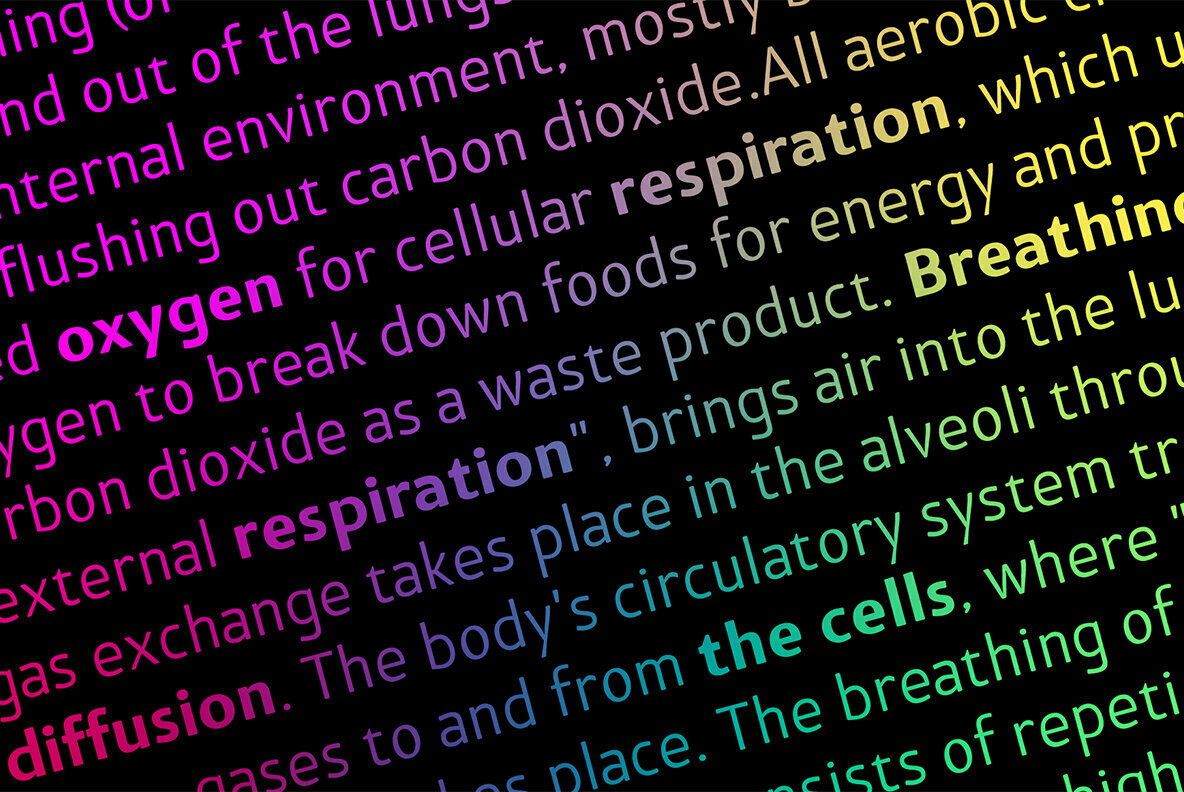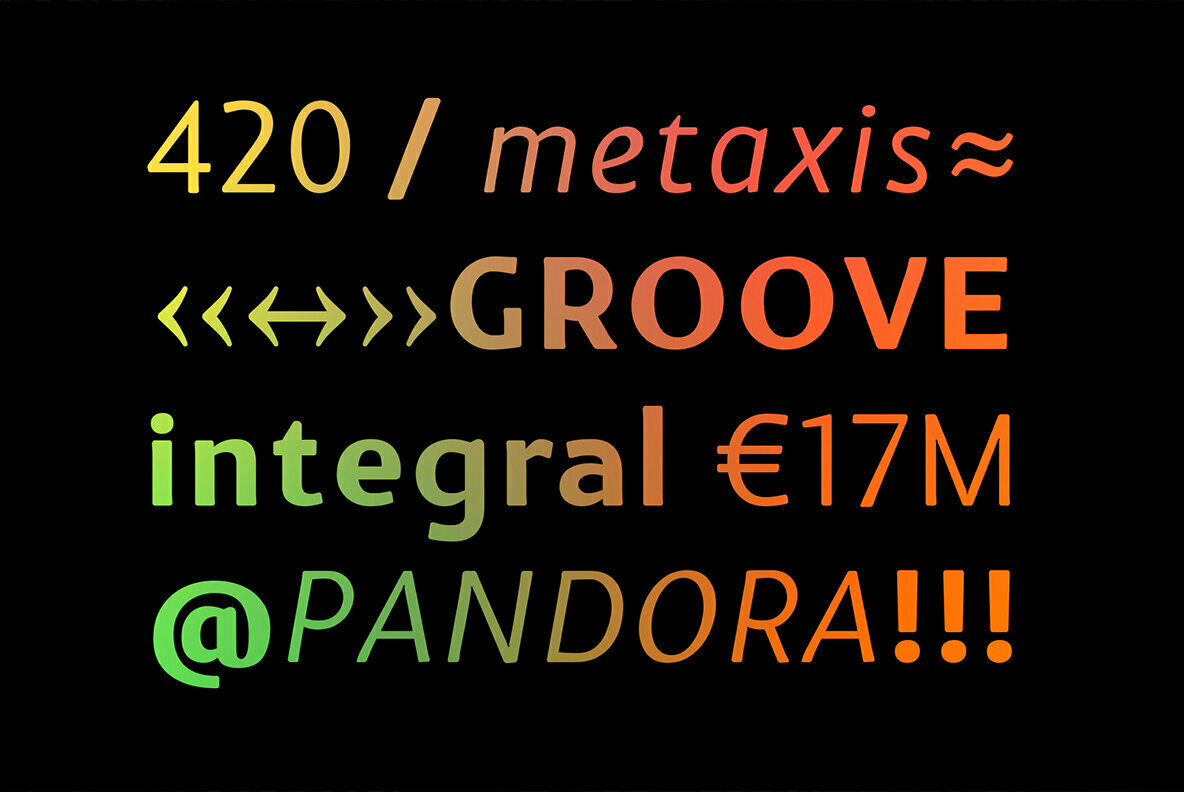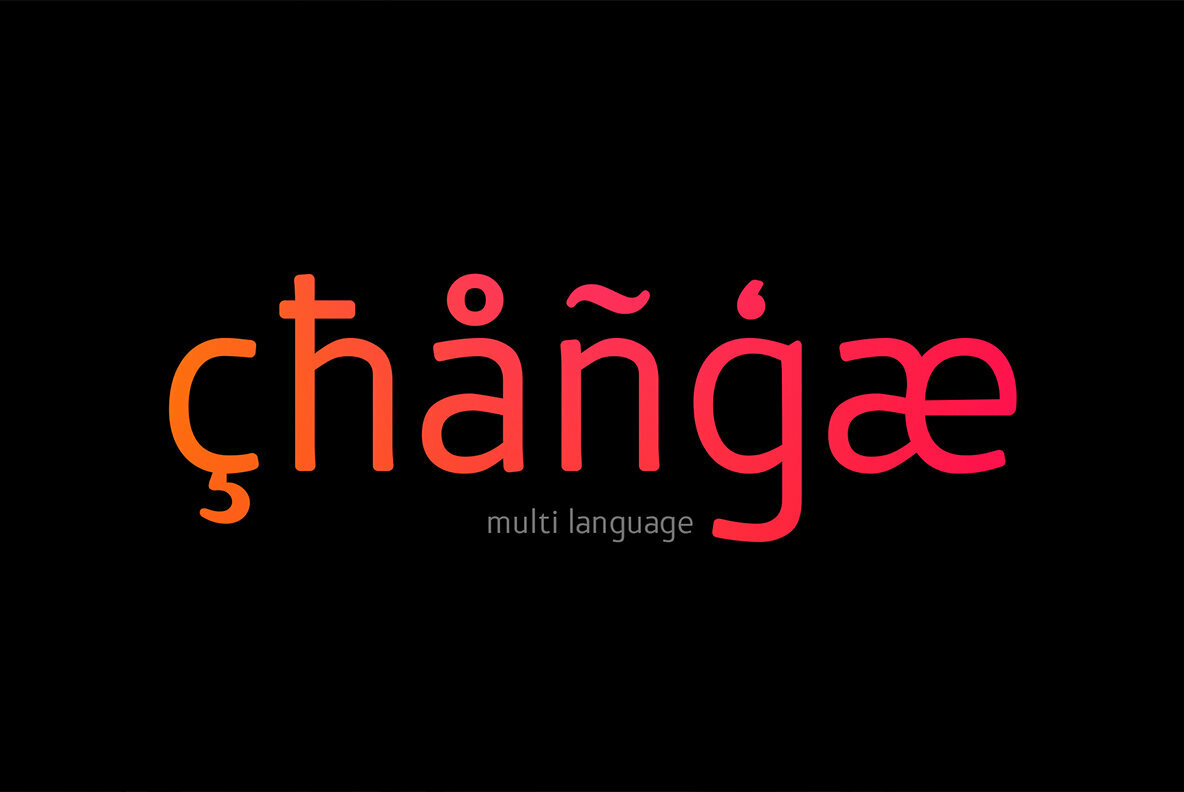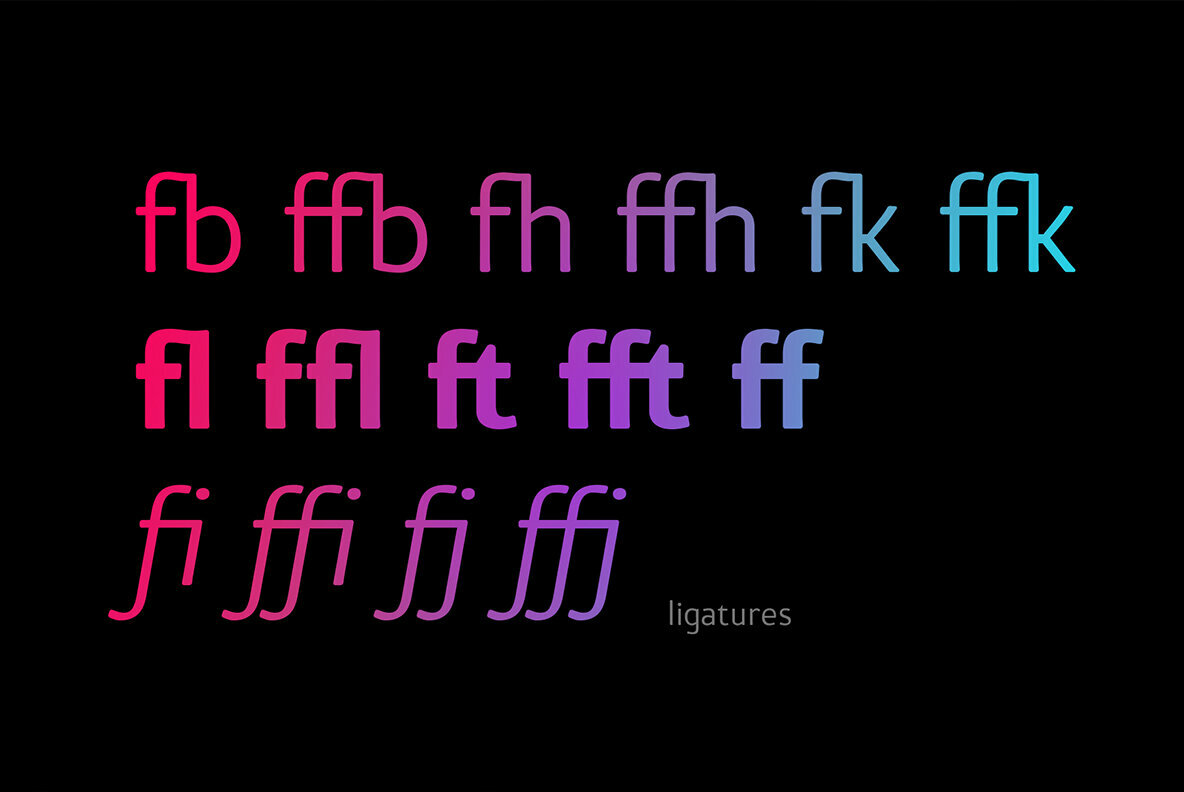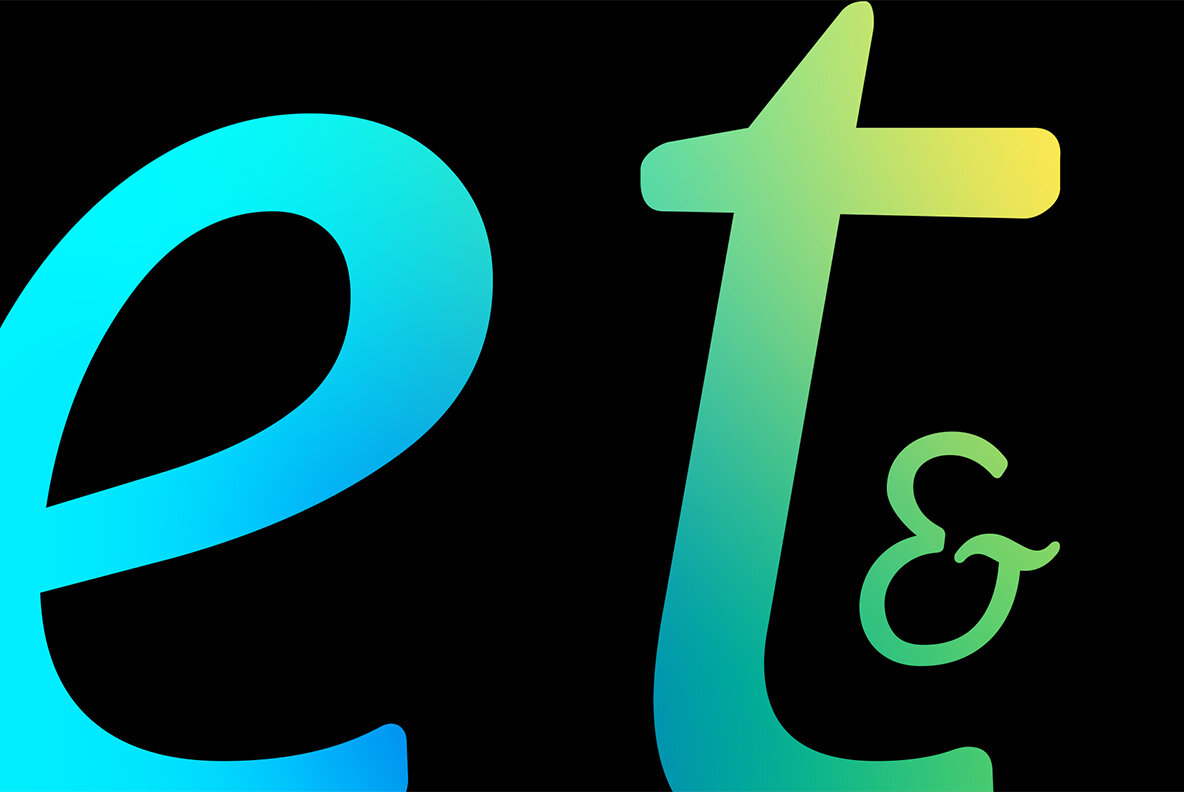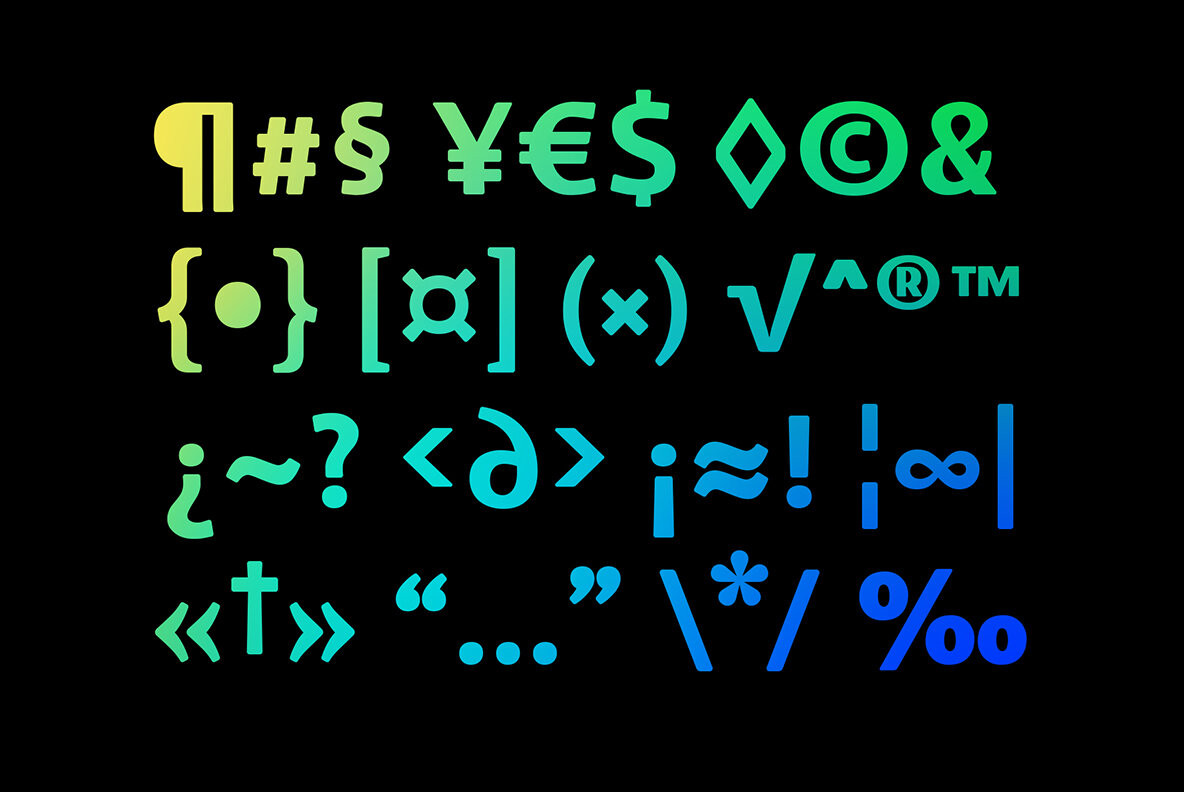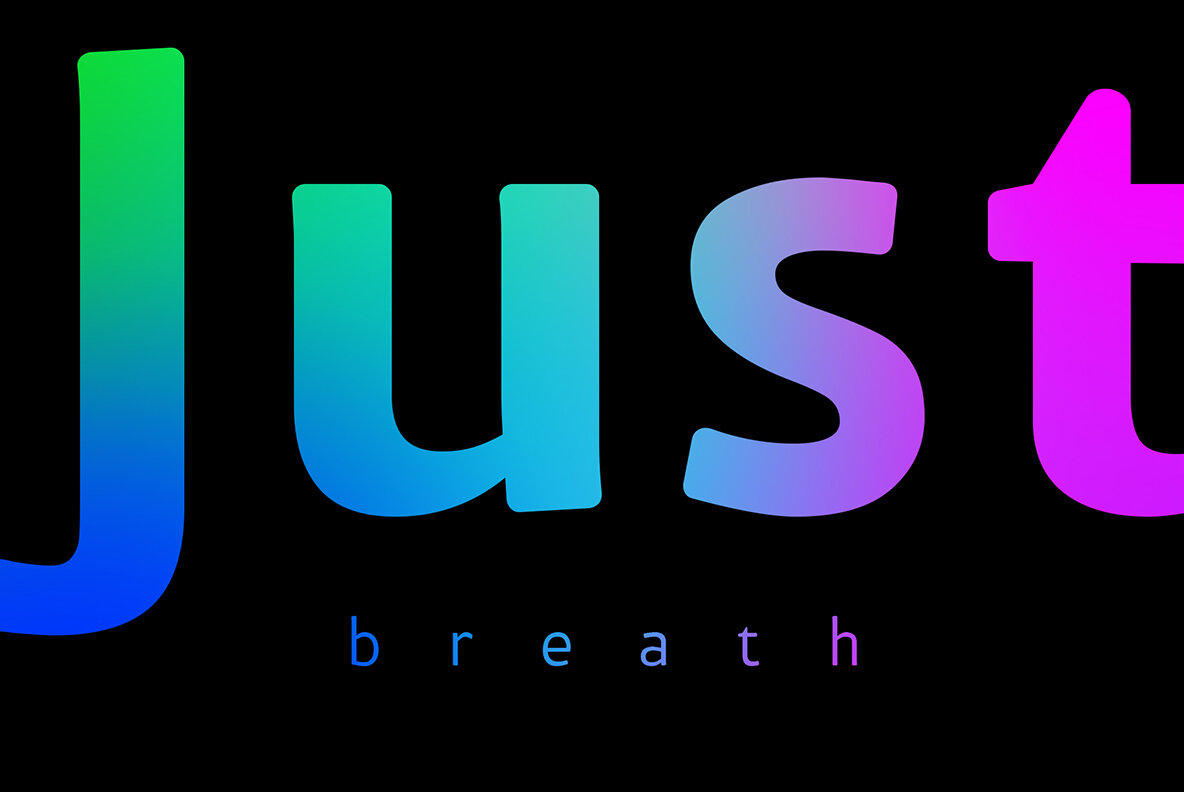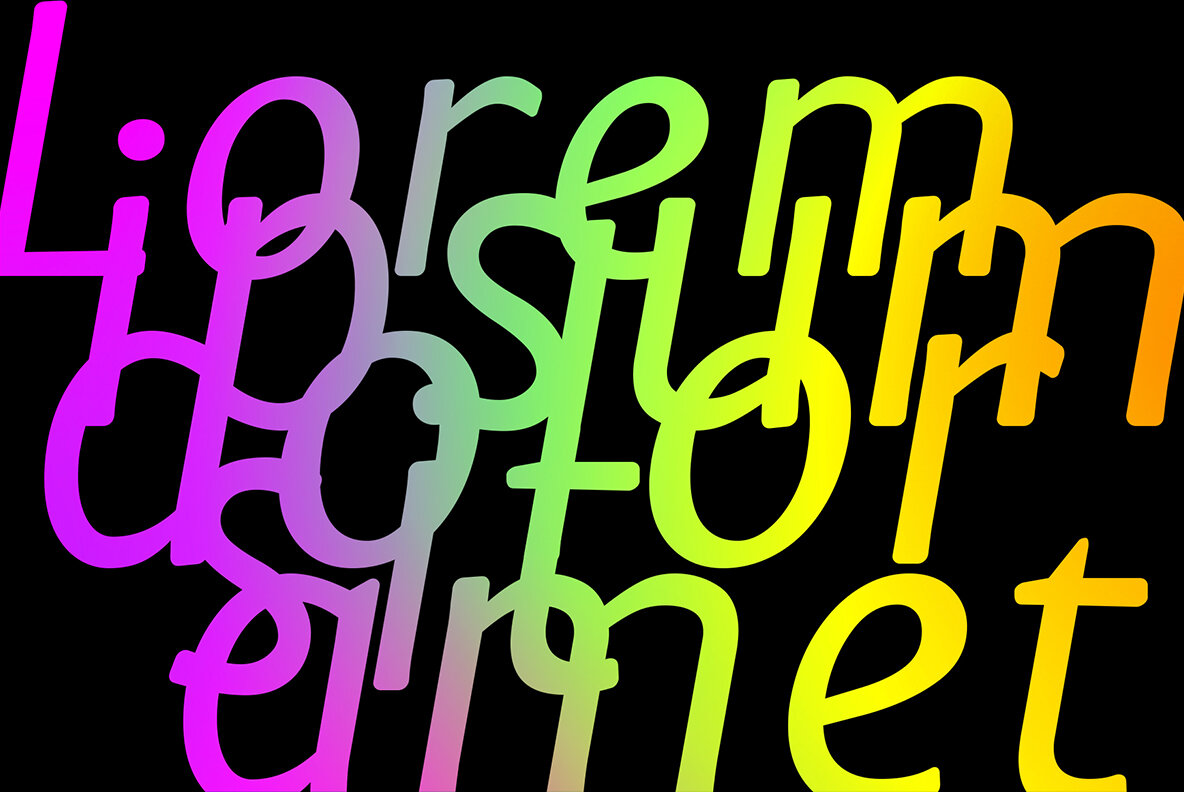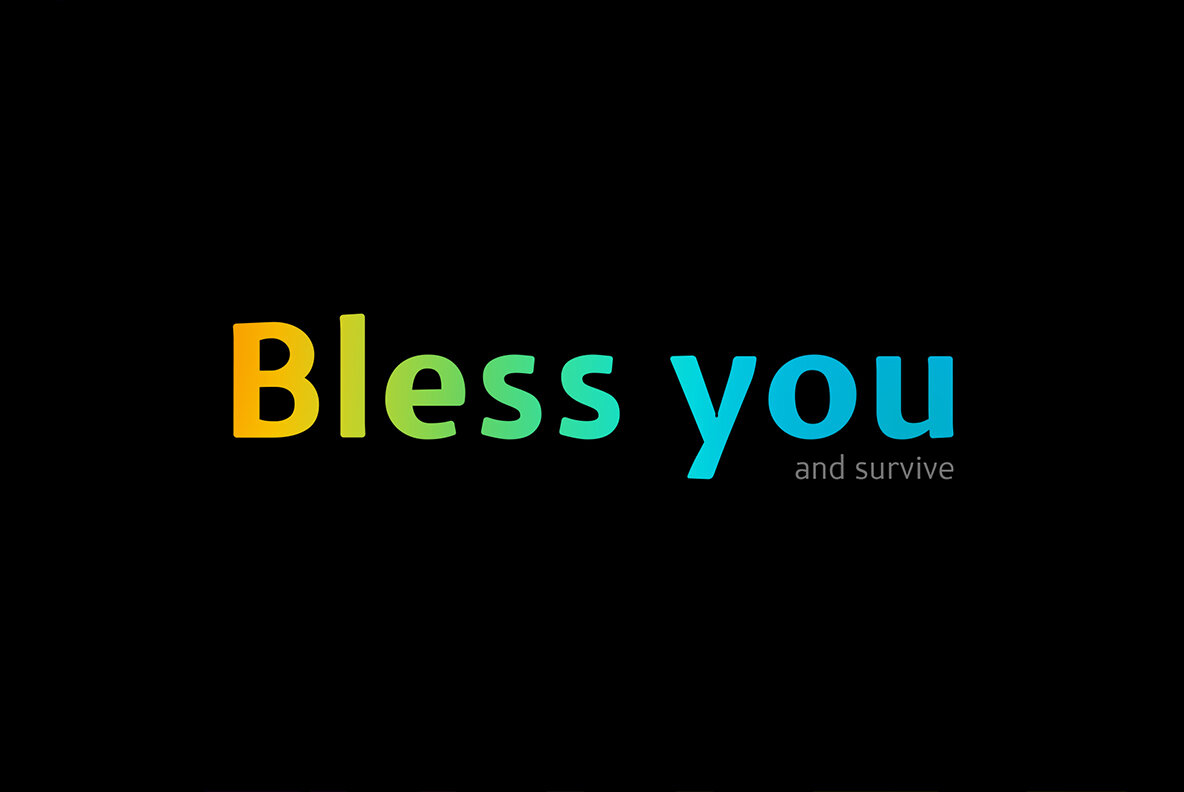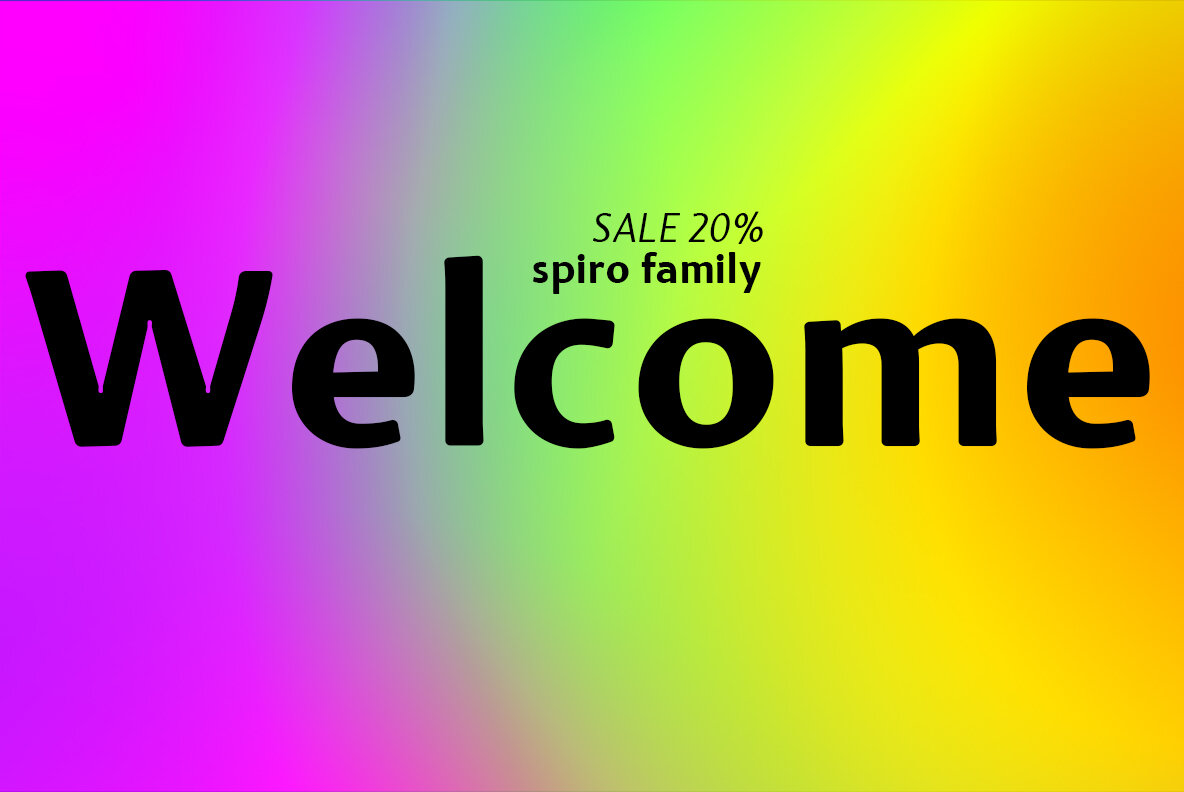
Spiro 2020 Font
Spiro 2020, a rounded sans serif from Etewut Foundry, provides a blend of seamless functionality and design versatility. Featuring three distinct styles—regular, bold, and italic—this font family is designed to meet the needs of modern design professionals.Spiro 2020: Versatile Rounded Sans Serif